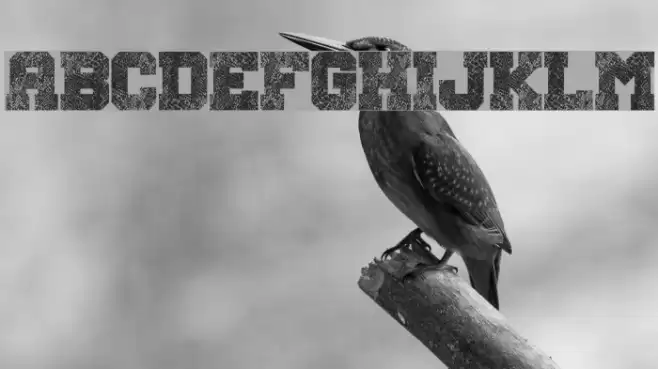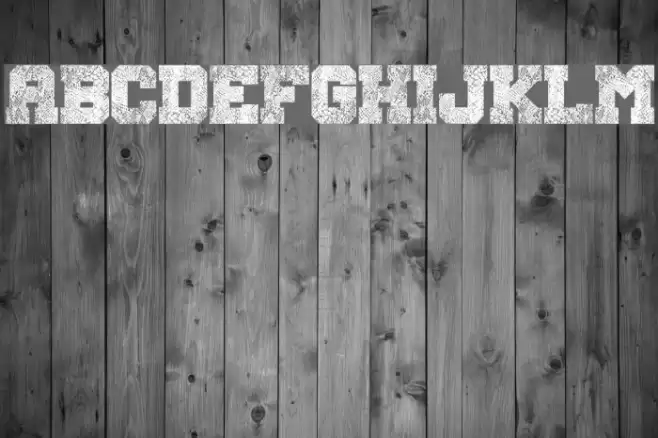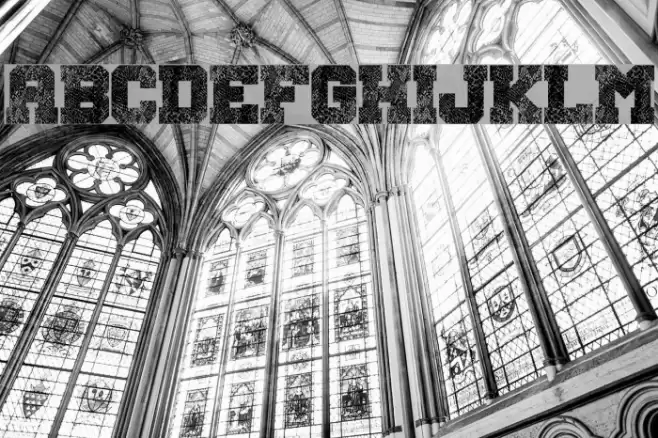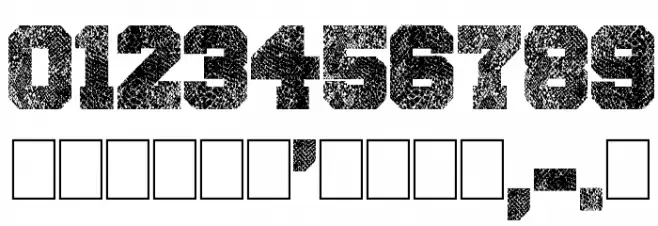
Snake Jacket Font
Snake Jacket Description
This font features a bold, textured design that gives it a rugged and distressed appearance. The uppercase letters are prominent and blocky, with a unique pattern that resembles a snakeskin or rough surface, adding a tactile dimension to the text. The numerals follow the same style, ensuring consistency across different types of content. The font's distinctiveness makes it ideal for projects that require a strong visual impact, such as posters, album covers, or branding materials. Its boldness and texture make it stand out, capturing attention with its dynamic and edgy look.
A bold, textured font with a rugged, distressed appearance from Uncategorized fonts.
- Proposed Projects: Ideal for posters, album covers, branding materials, and any project needing a strong visual impact.